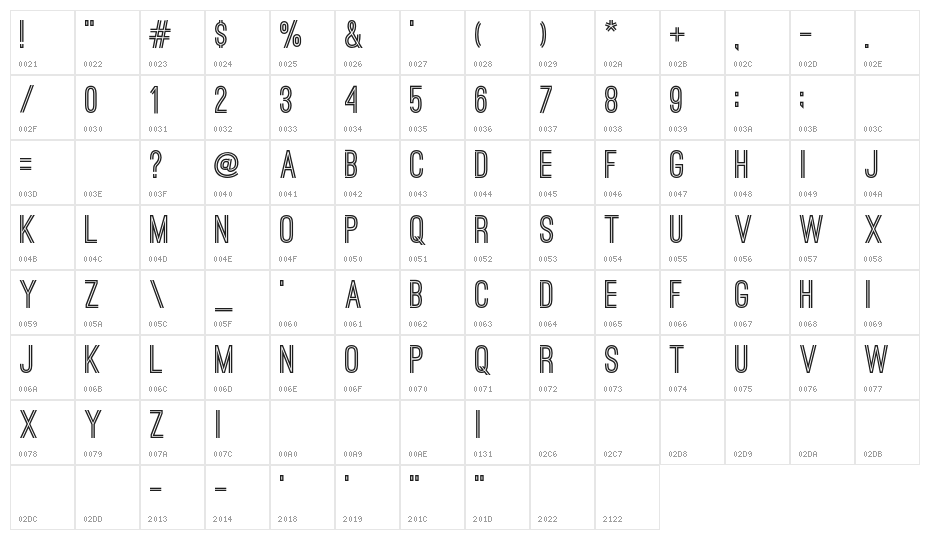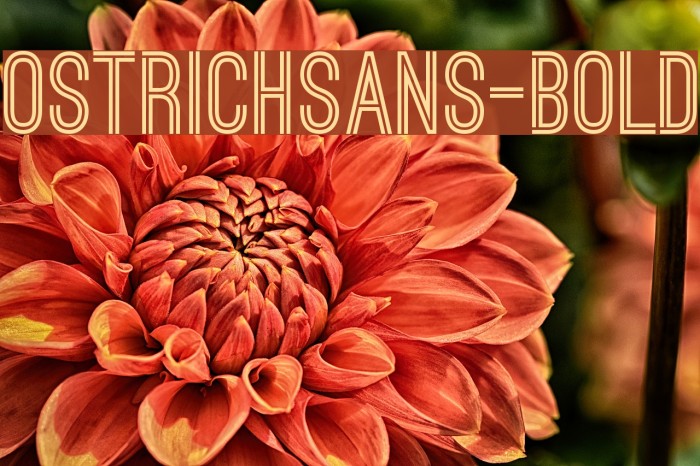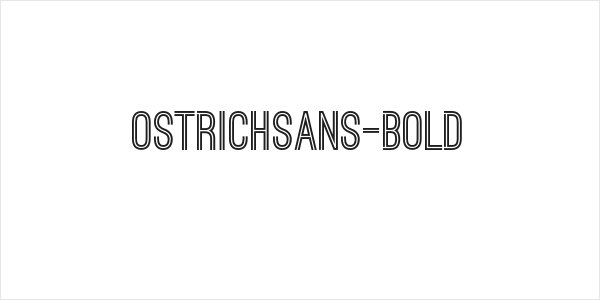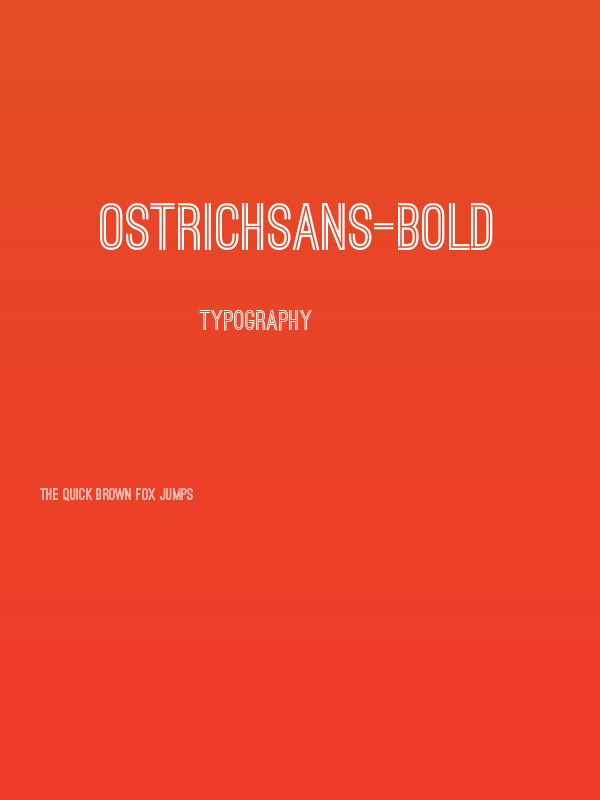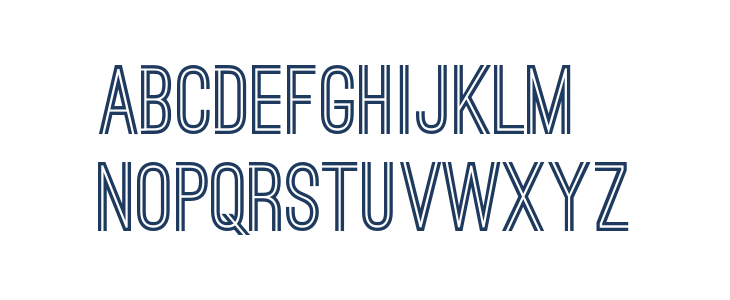
OstrichSans-Bold Font
OstrichSans-Bold Description
This font features a modern and clean design with a distinct geometric structure. The characters are constructed with uniform stroke widths, giving it a bold and confident appearance. The uppercase letters are tall and narrow, while the lowercase letters maintain a consistent height, creating a harmonious balance. The numerals are clear and easily distinguishable, making them suitable for various applications. Special characters are well-defined, adding versatility to the font's use. Its simplicity and clarity make it ideal for projects that require a strong visual impact.
| Proposed Projects | Ideal for branding, headlines, posters, and digital media where a strong visual presence is needed. |